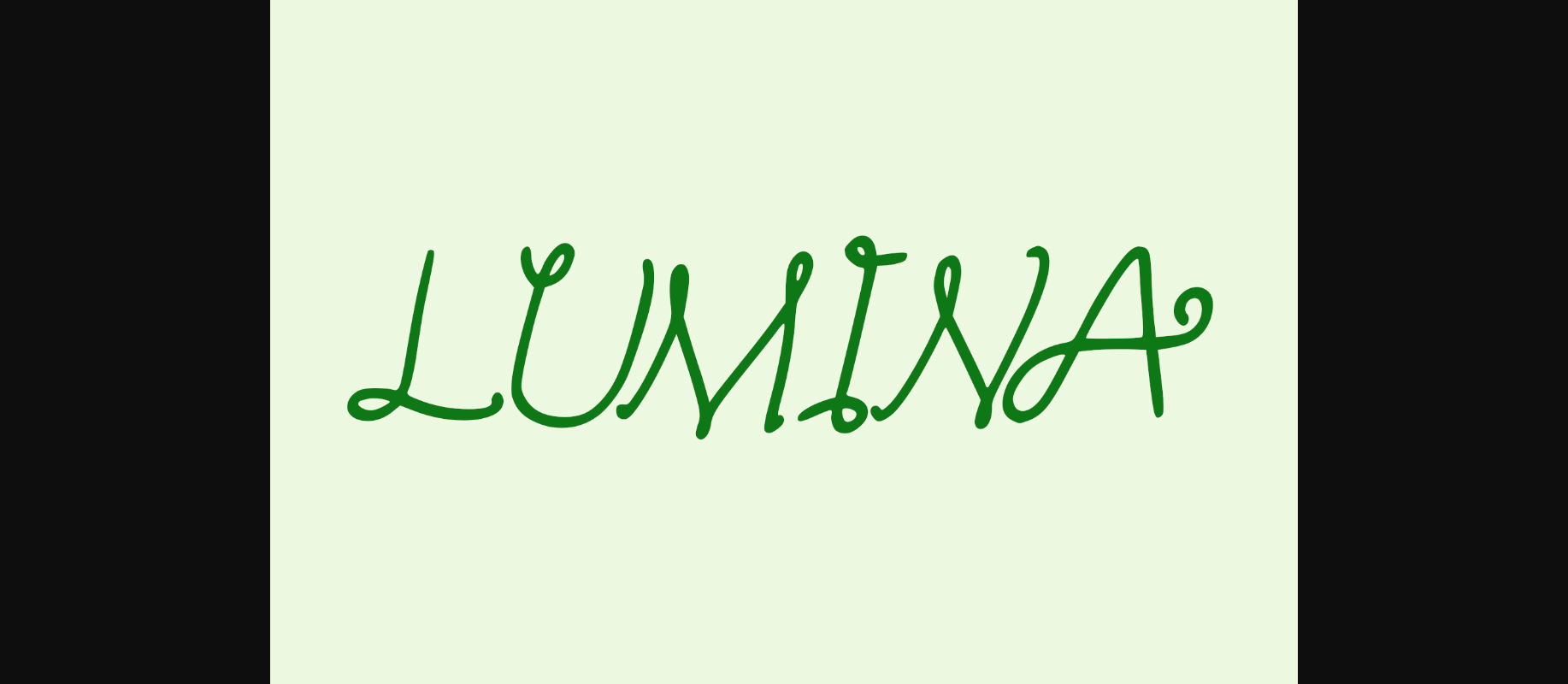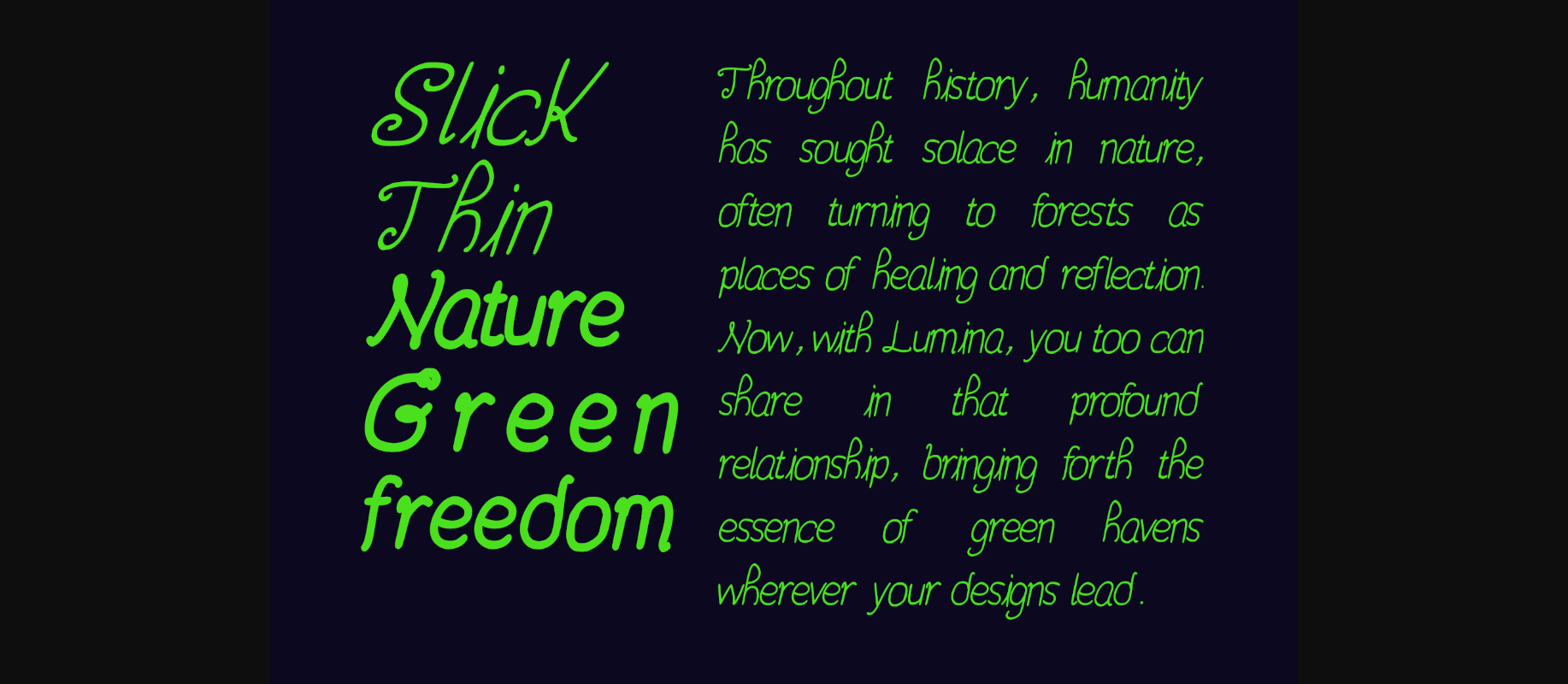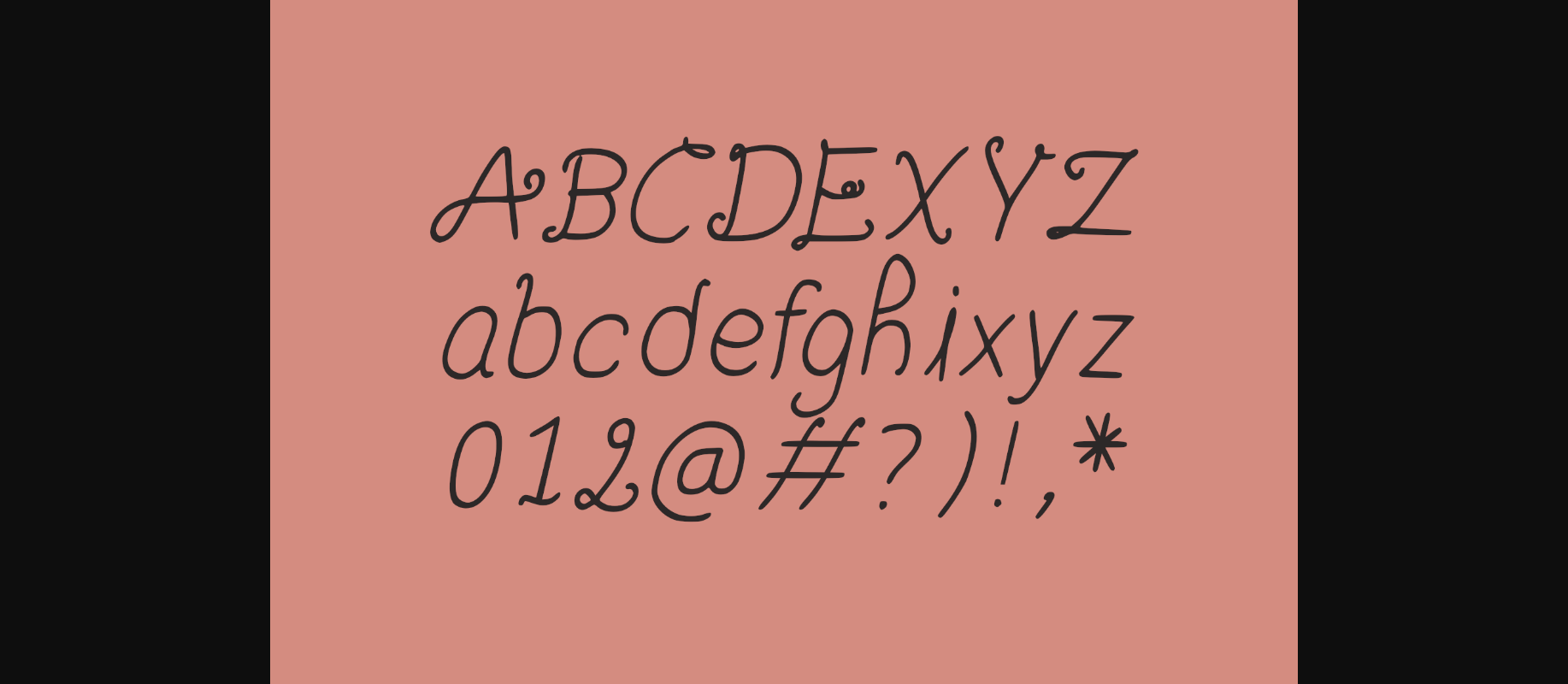
Lumina Font
About Lumina Font
Lumina skillfully intertwines the ethereal essence of sunlight filtering through the trees with the rustling rhythms of forest sounds, providing a visual manifestation of tranquil woodland retreats.
Designers can apply Lumina’s organic charm to various projects, including environmental awareness campaigns, outdoor event advertisements, or sustainable lifestyle publications. By doing so, they elicit strong emotional responses promoting appreciation for the planet and inspiring action to preserve its precious resources.